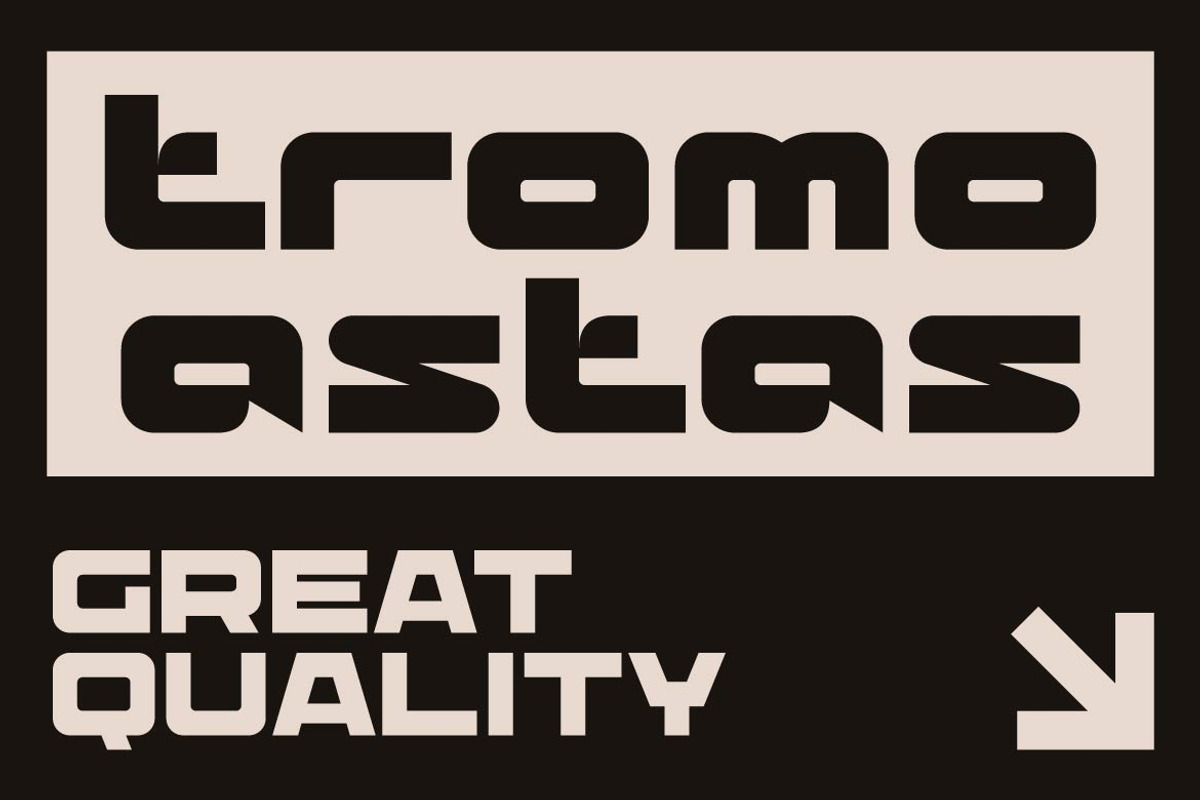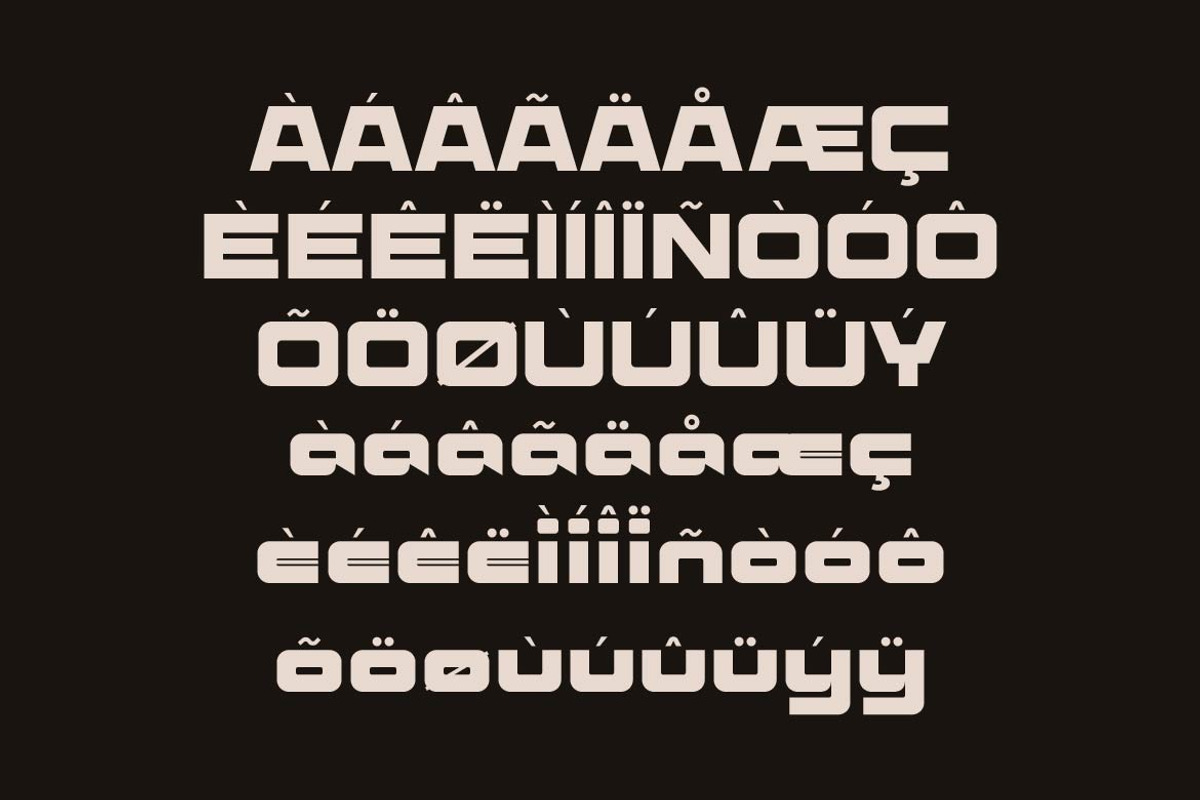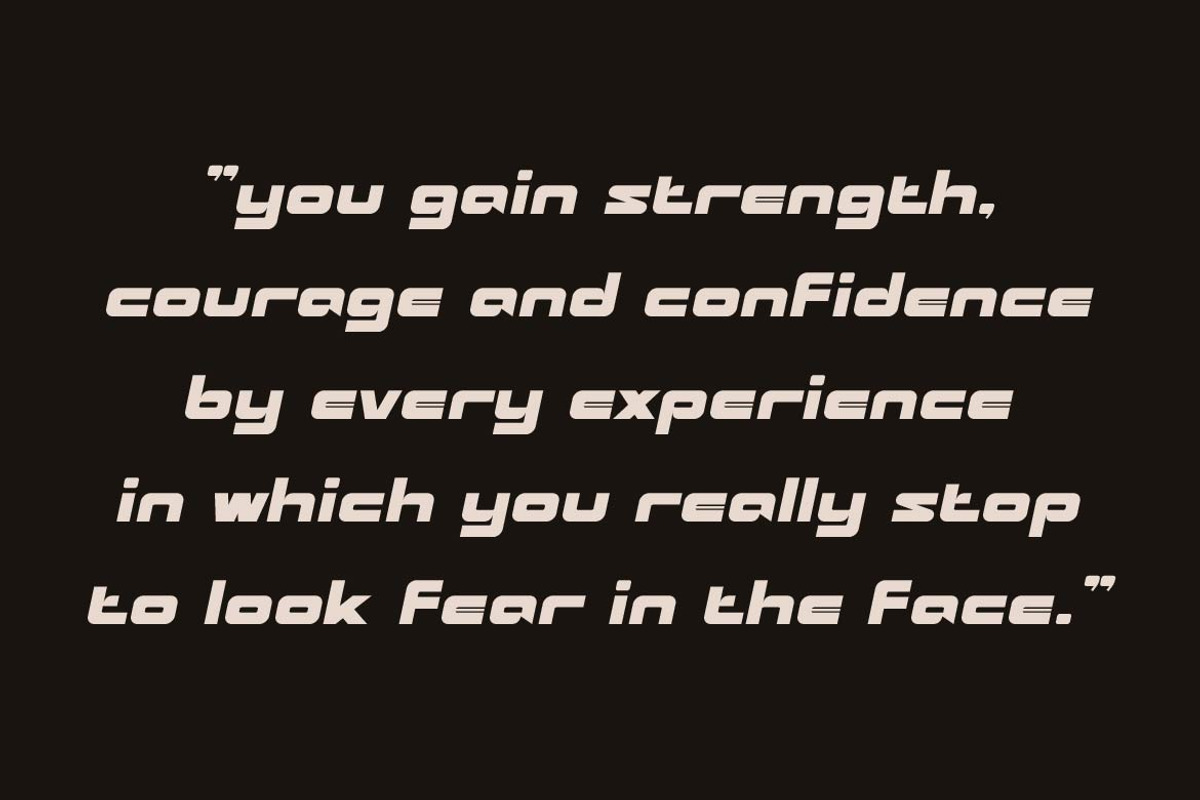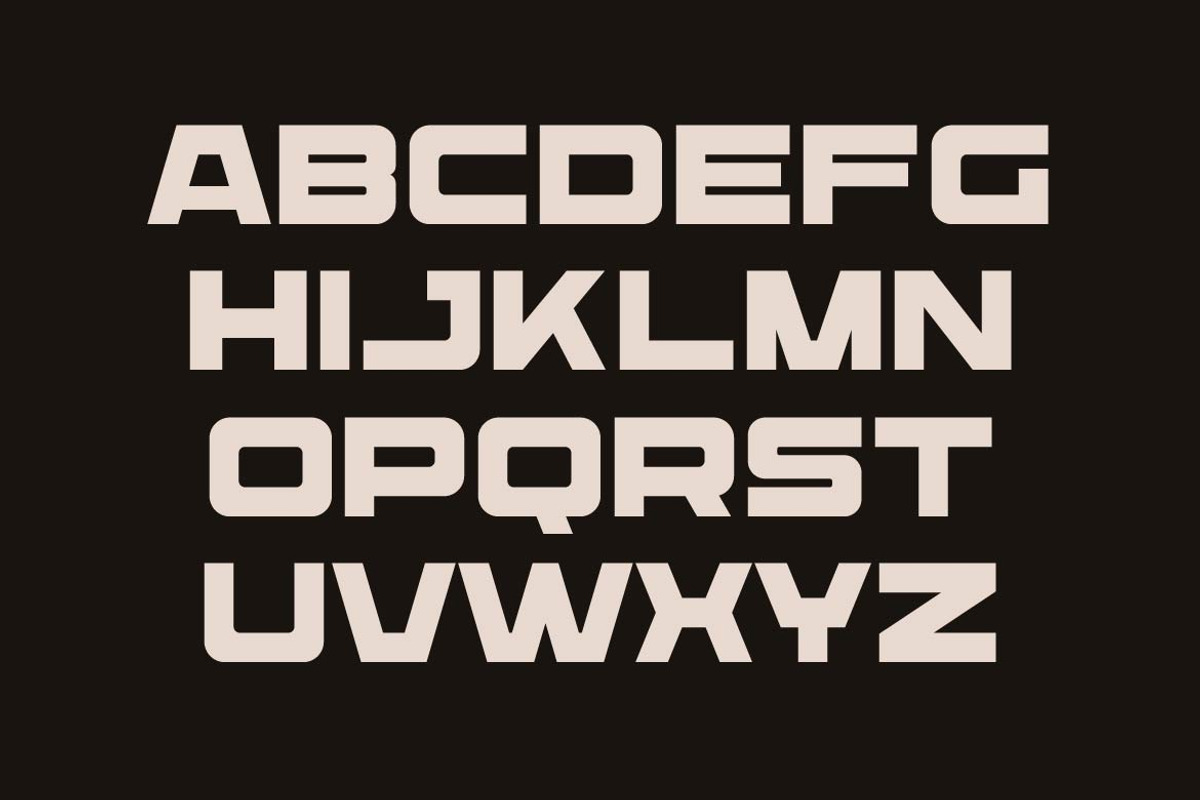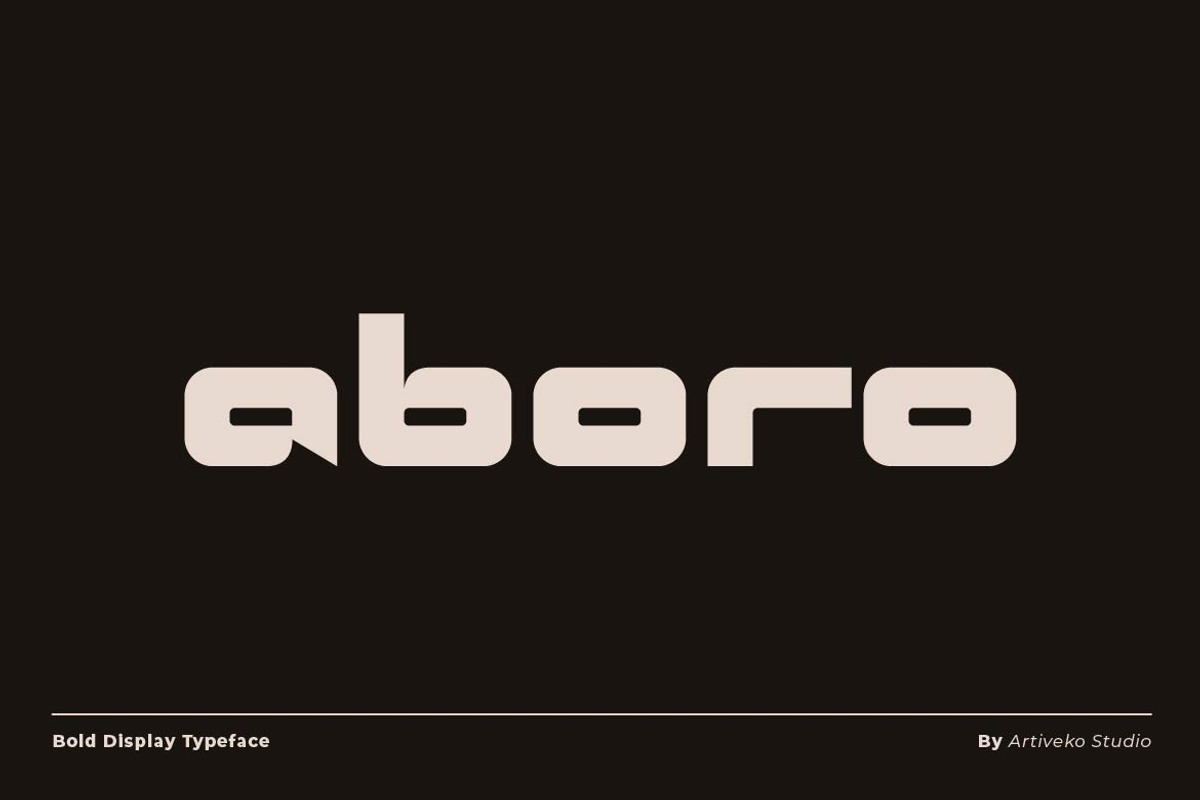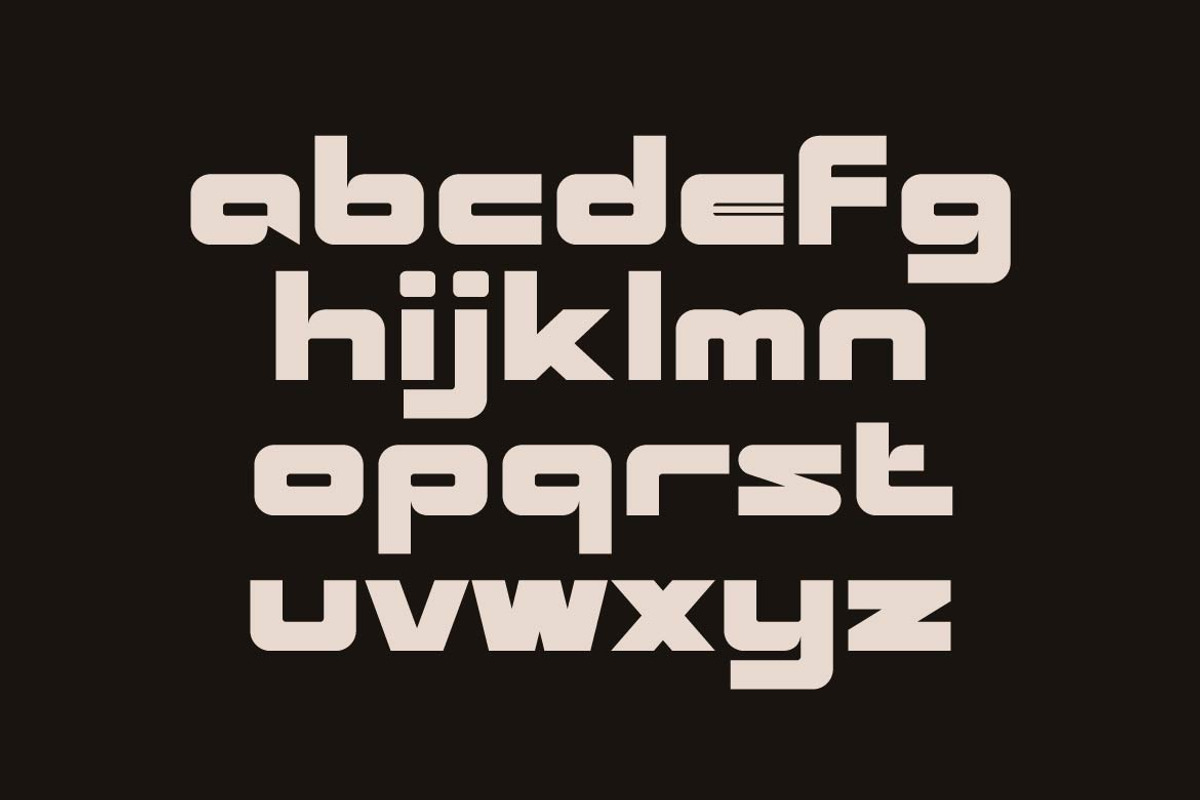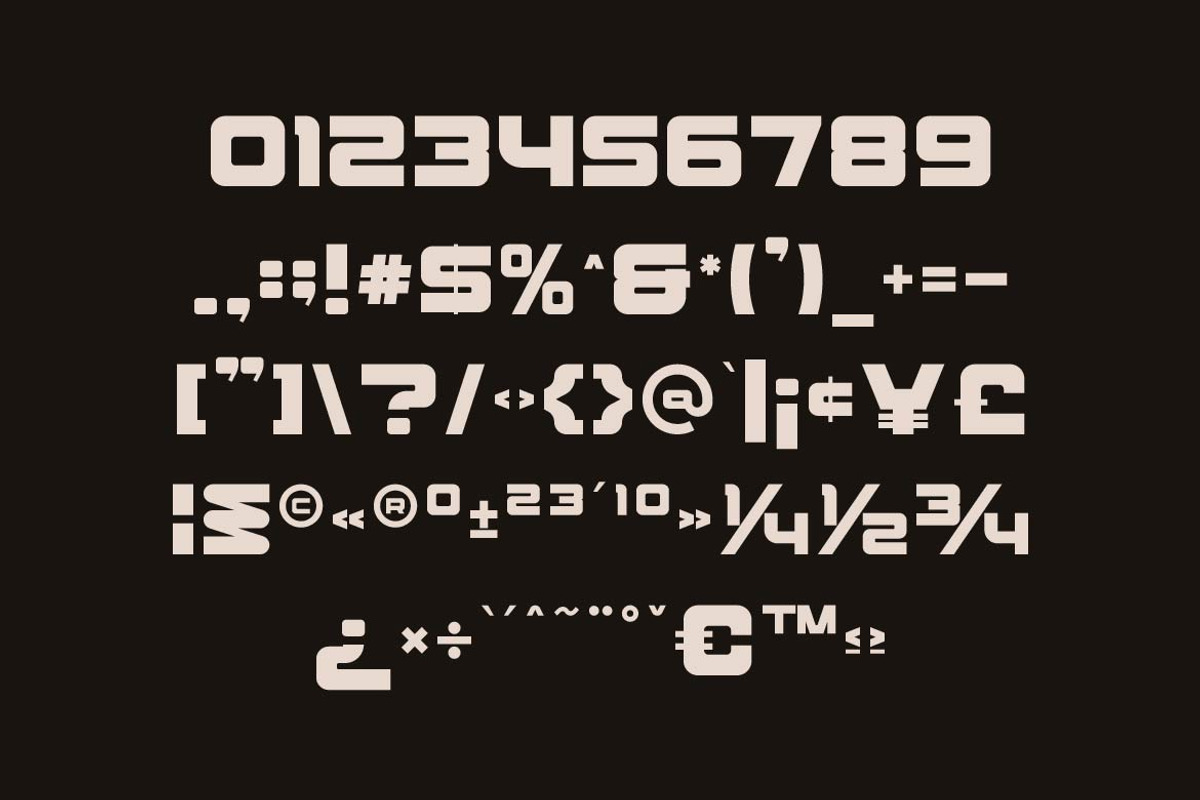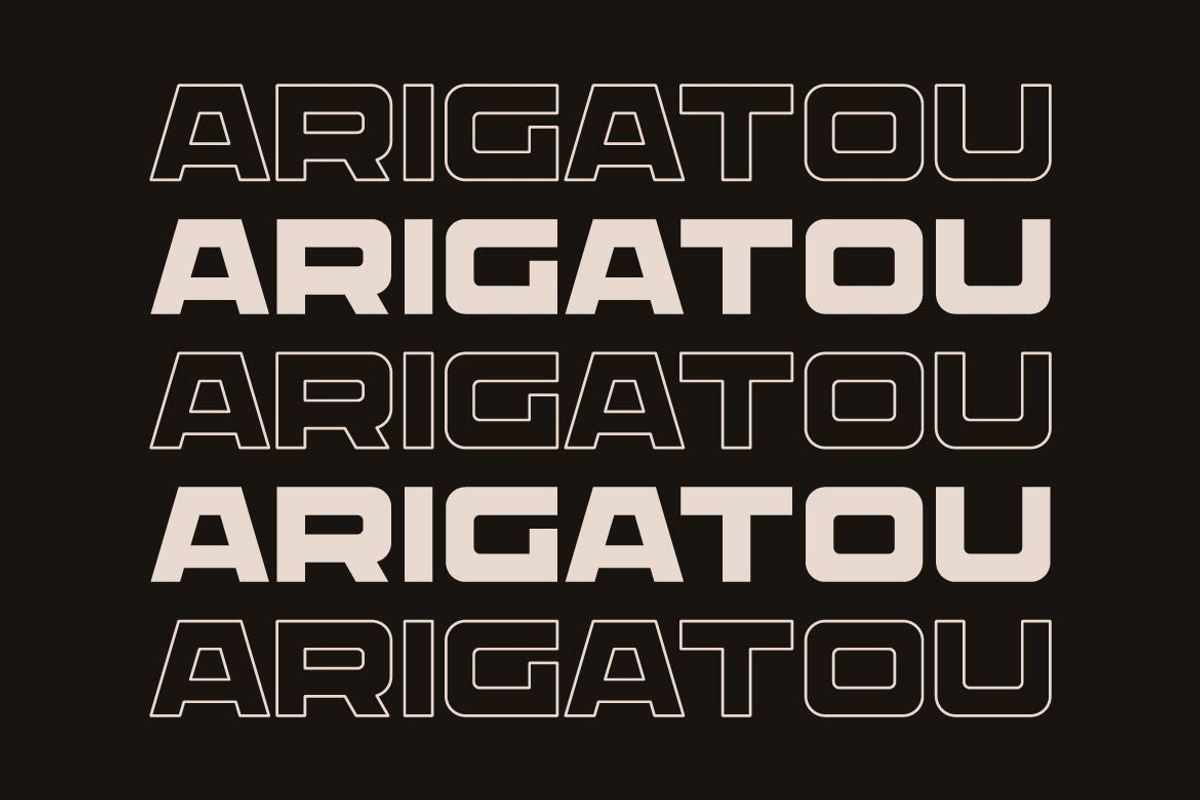
Aboro – Strong Bold Display Font
Aboro is a strong and bold display typeface designed to deliver maximum visual impact. With heavy weight, solid structure, and confident letterforms, Aboro commands attention in every composition—making it perfect for headlines, posters, logos, branding, packaging, and promotional campaigns.